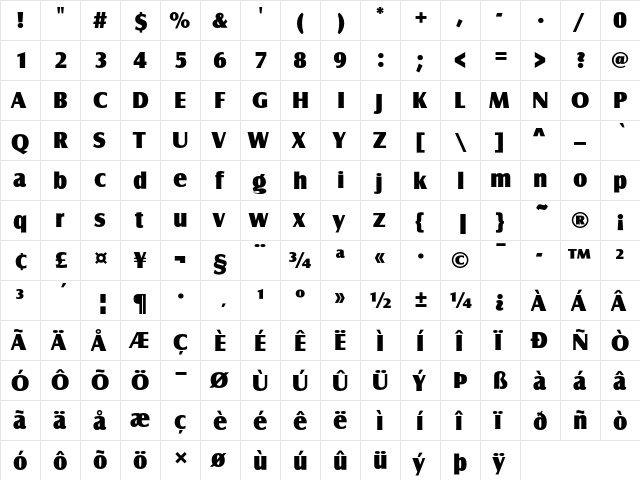
Castle T Ultra
Design Context for Castle T Typeface
Castle T offers clean, dependable letterforms without strong stylistic allegiance, making it a practical choice for designers who need flexibility.